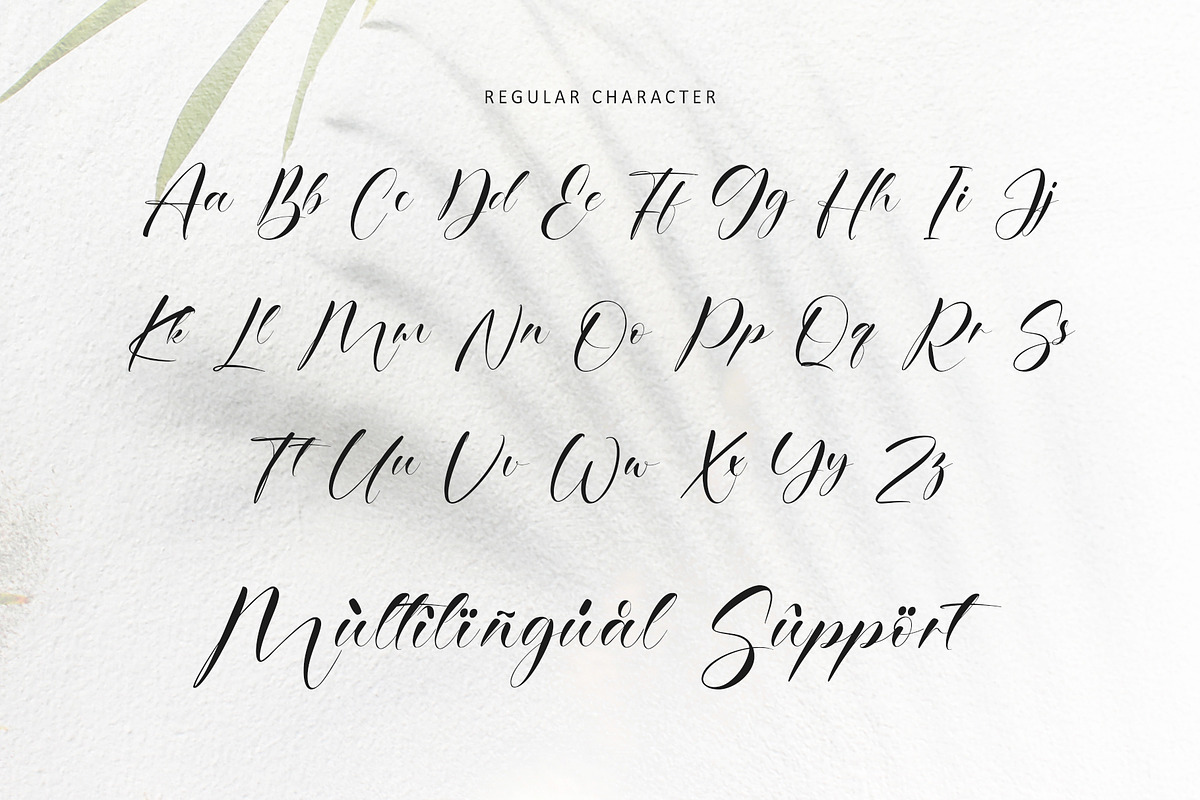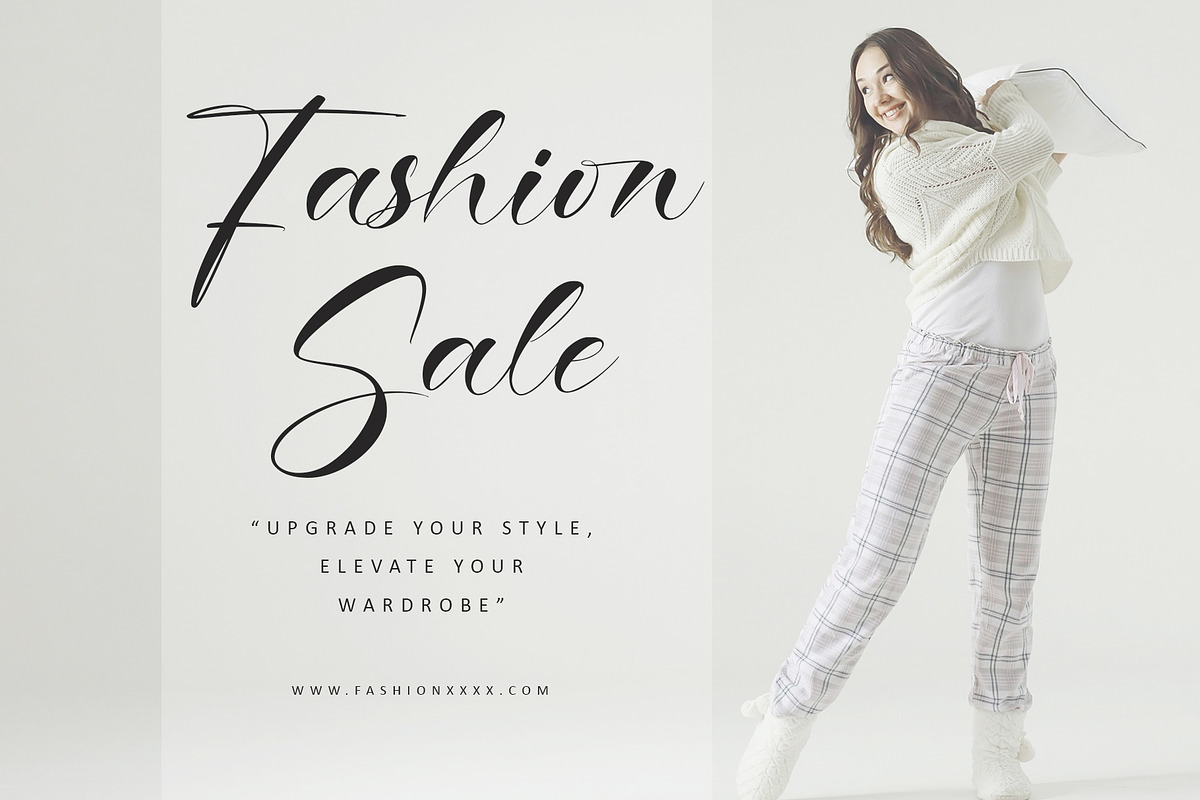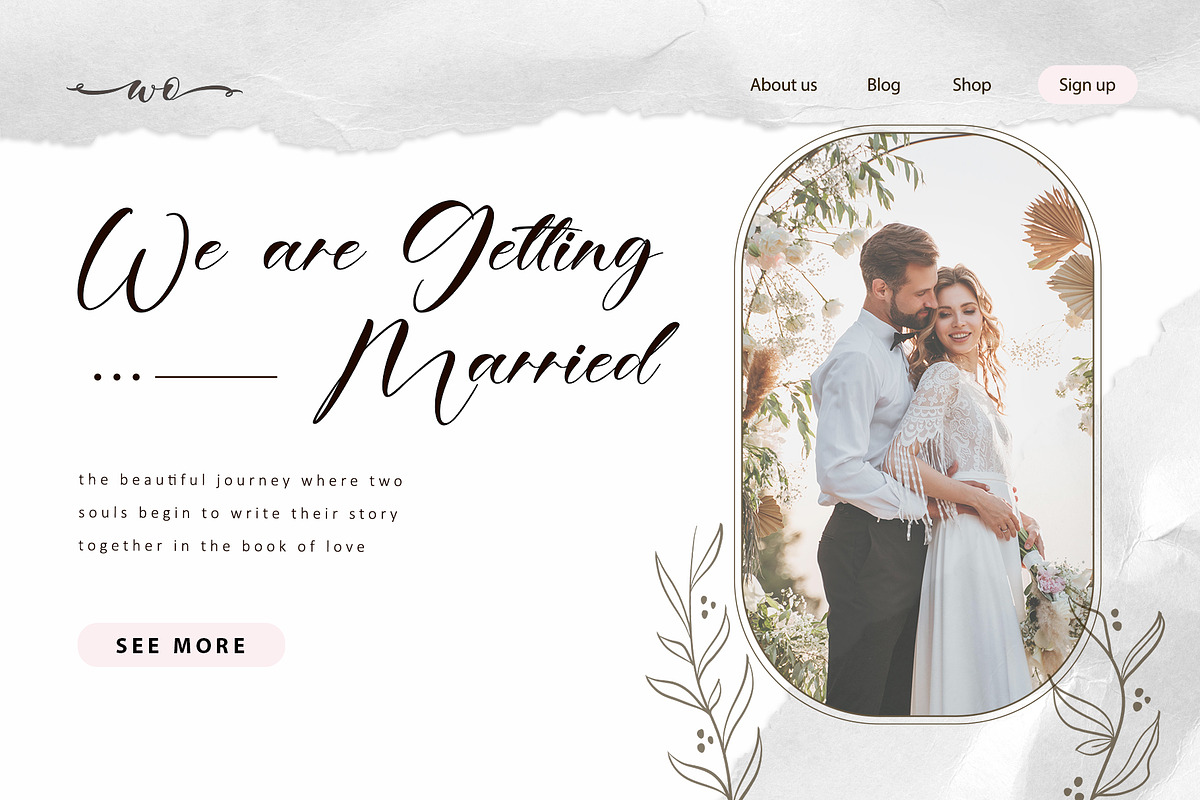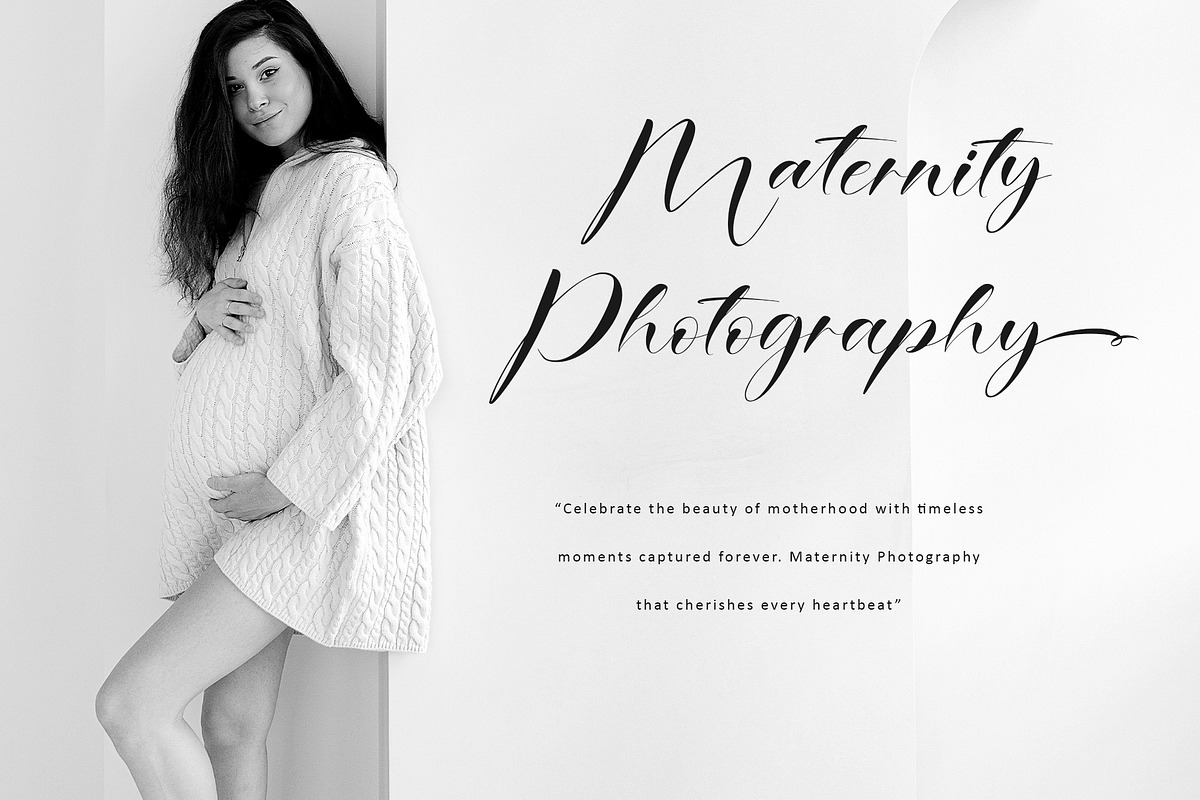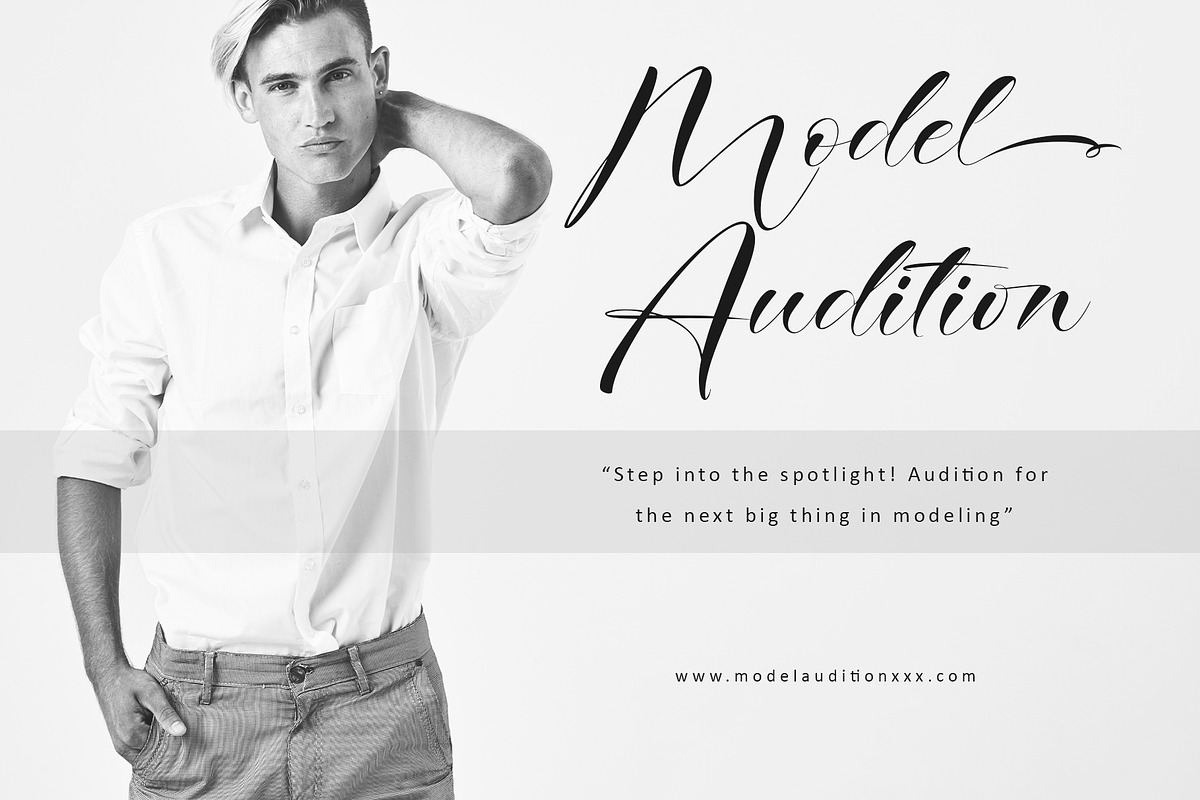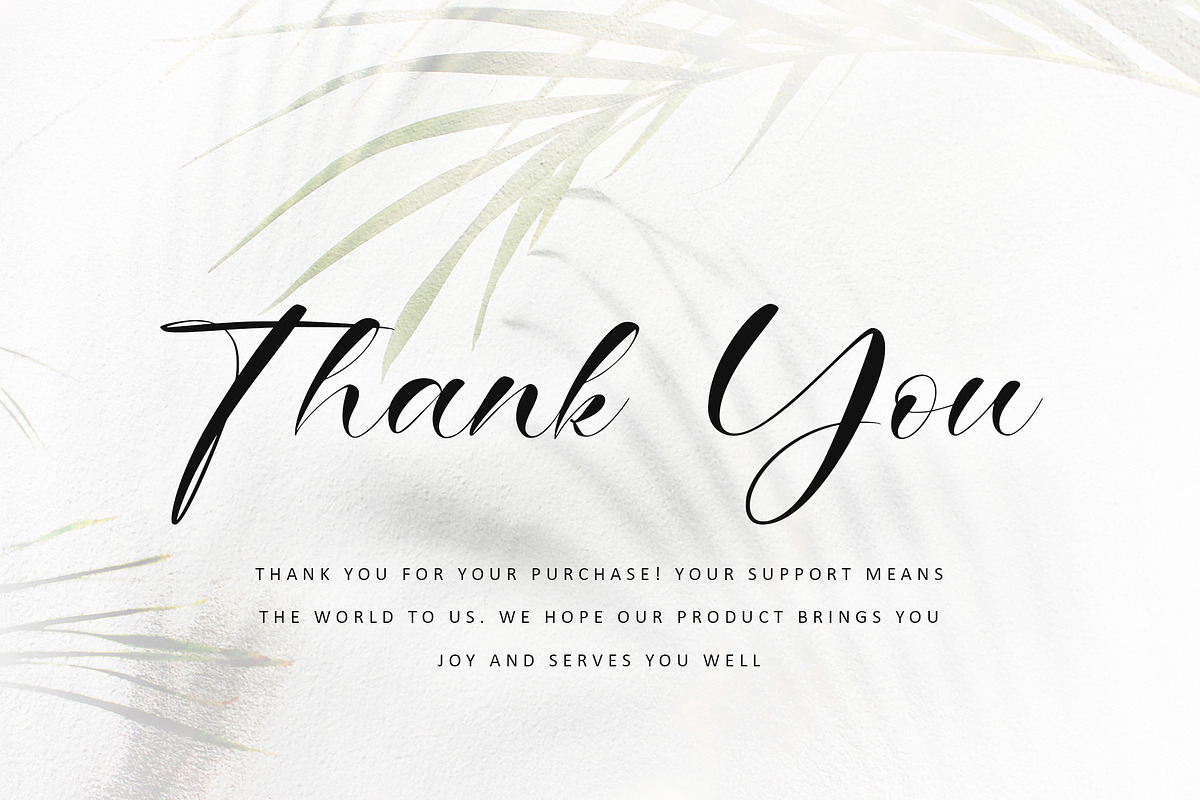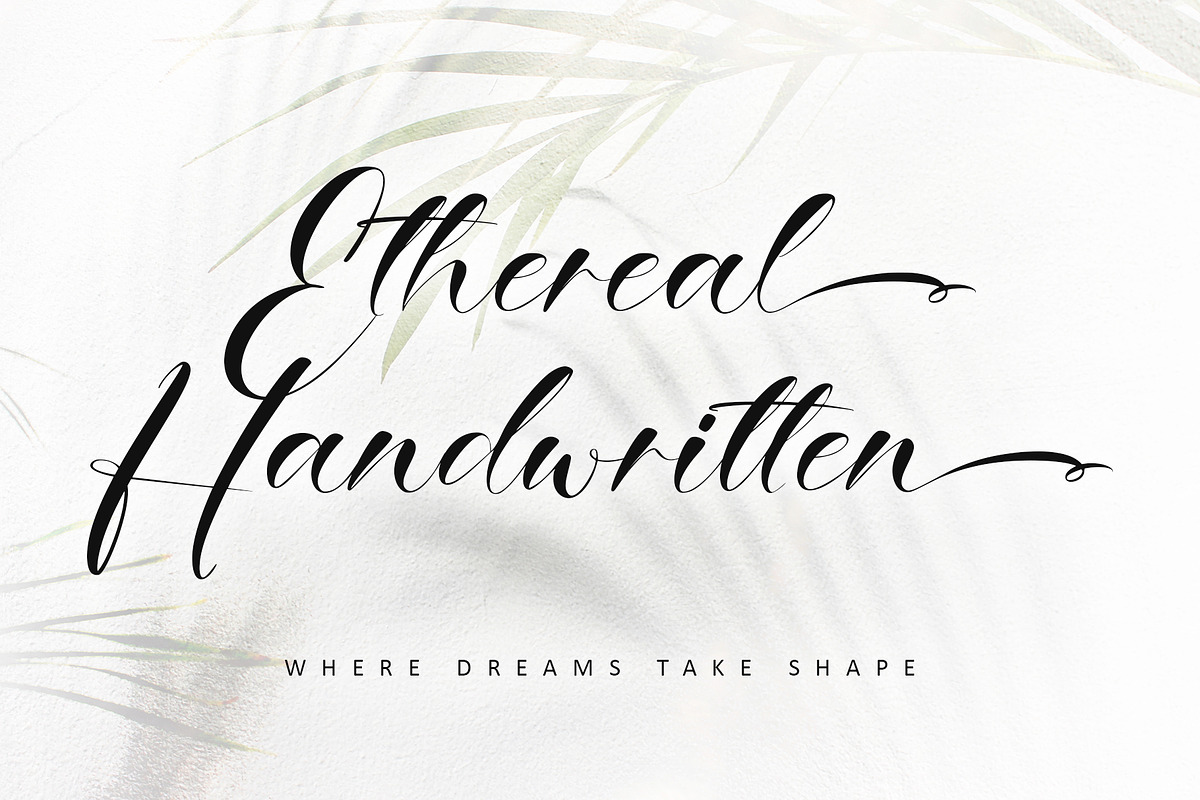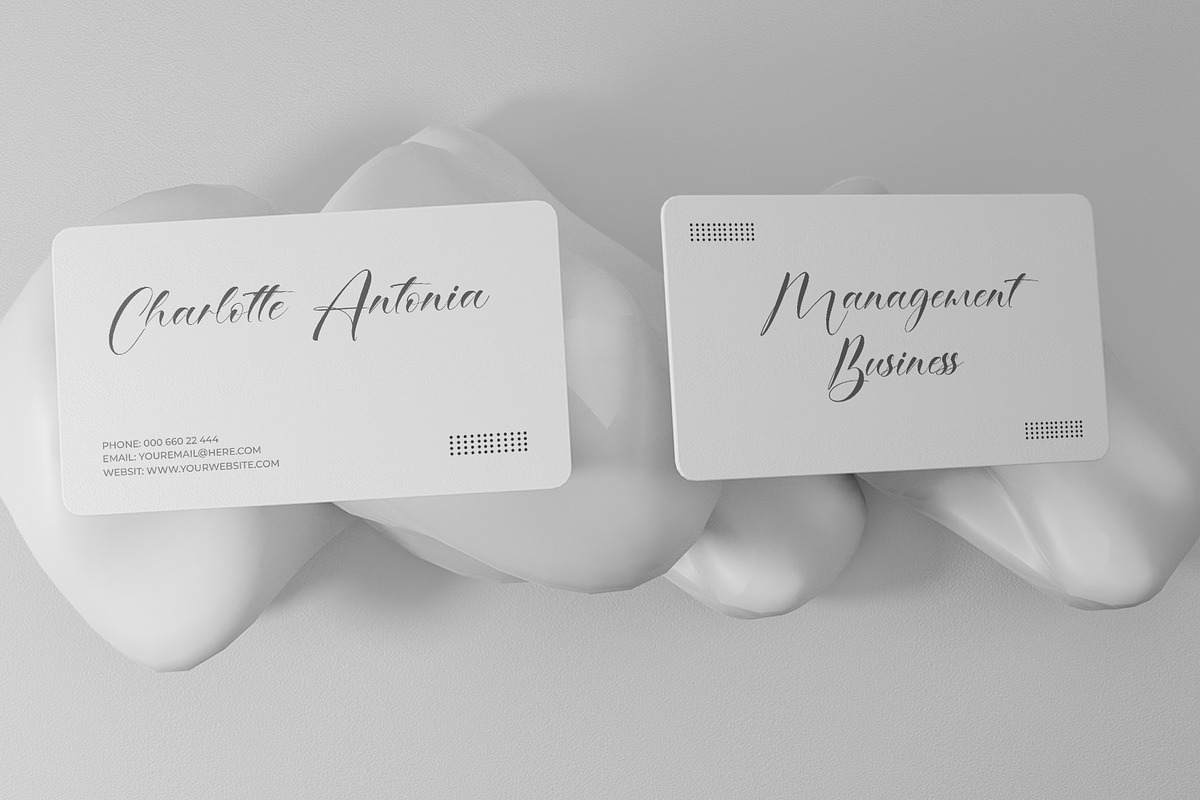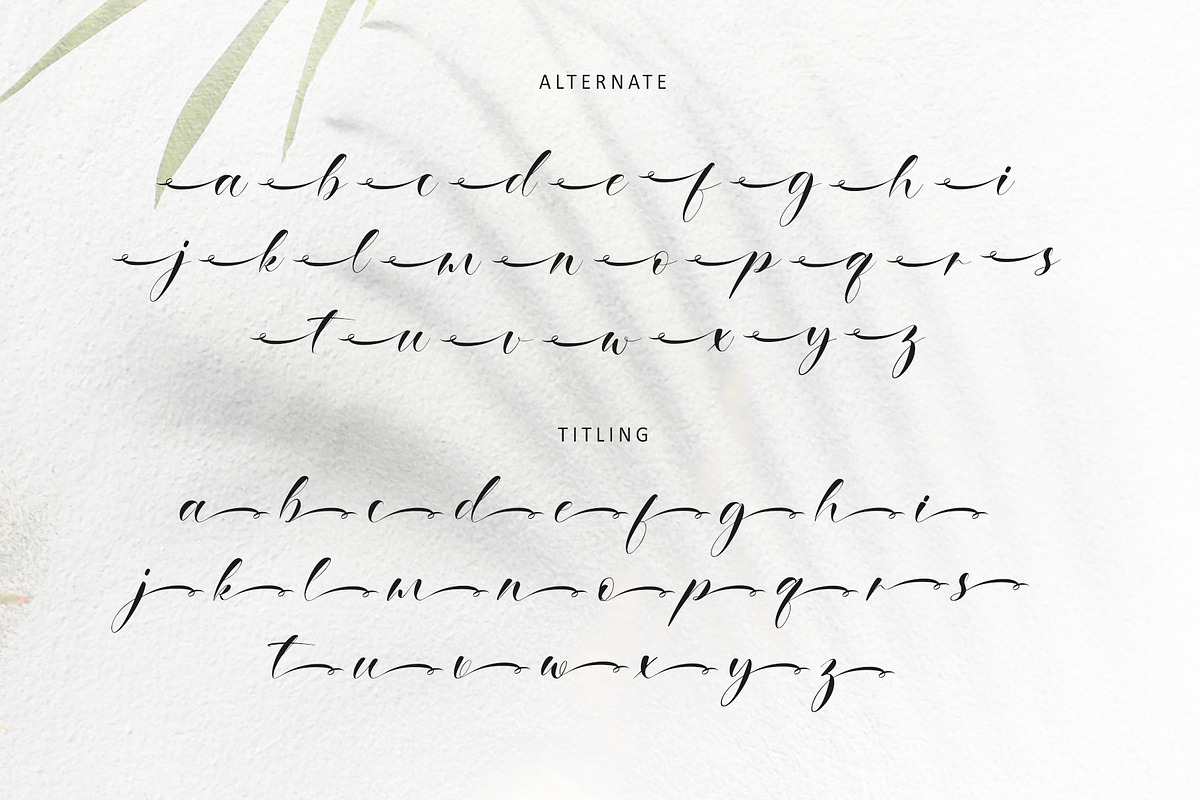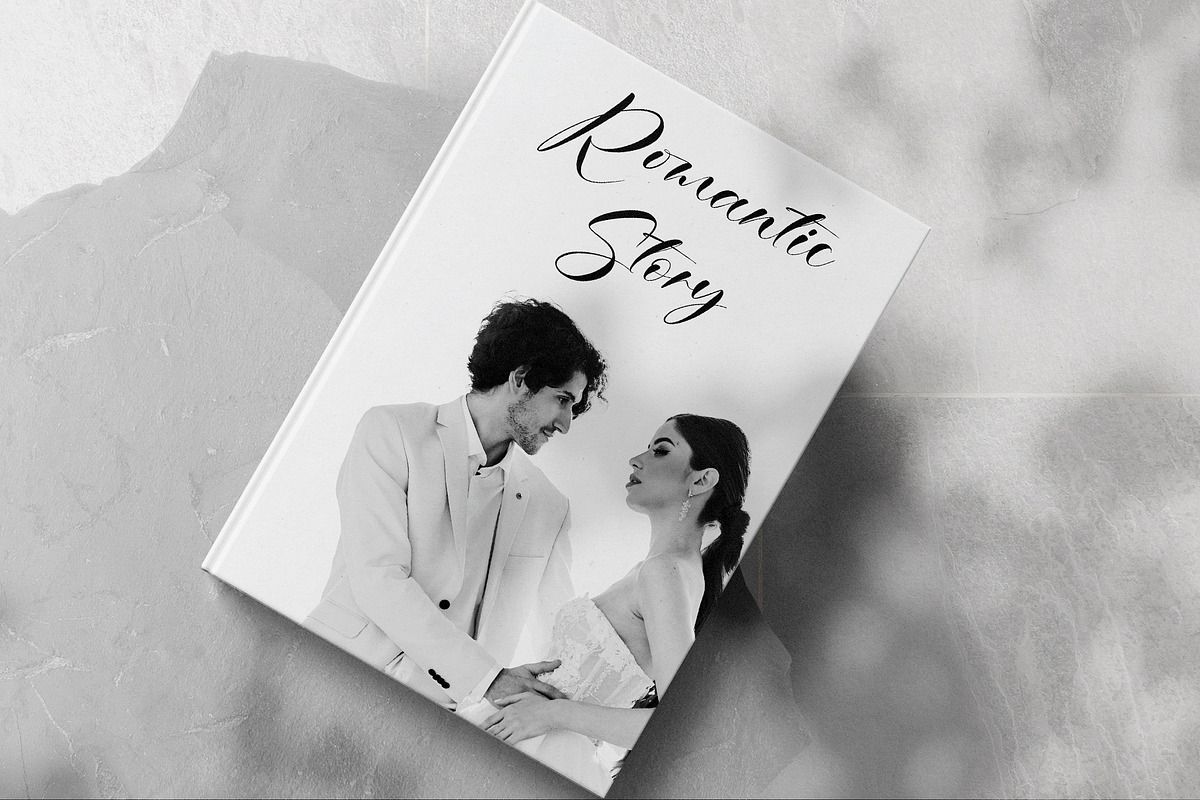
Ethereal Handwritten
Introducing "Ethereal Handwritten," a mesmerizing script font that radiates elegance and sophistication. Its graceful curves and flawless letterforms infuse a personal touch and authenticity into your projects. Whether for branding, packaging, invitations, website, poster, logos, advertising, or any creative endeavor demanding a dash of class, "Ethereal Handwritten" elevates your designs with its enchanting allure. Embrace the ethereal beauty and timeless charm of "Ethereal Handwritten," leaving a lasting impression with every stroke
- Support multilingual; ä ö ü Ä Ö Ü ß ¿ ¡
- lowercase and uppercase letters
- Alternate, titling & ligature